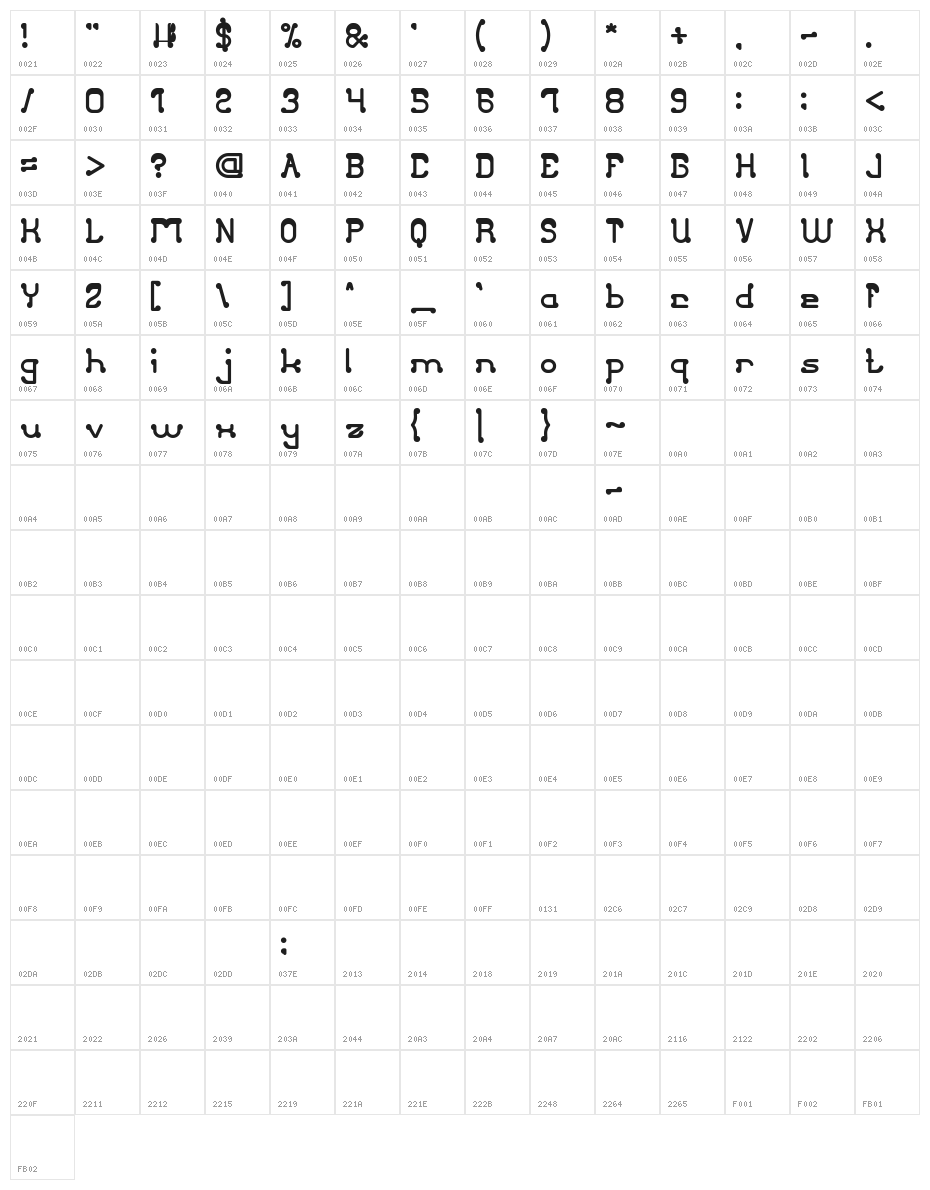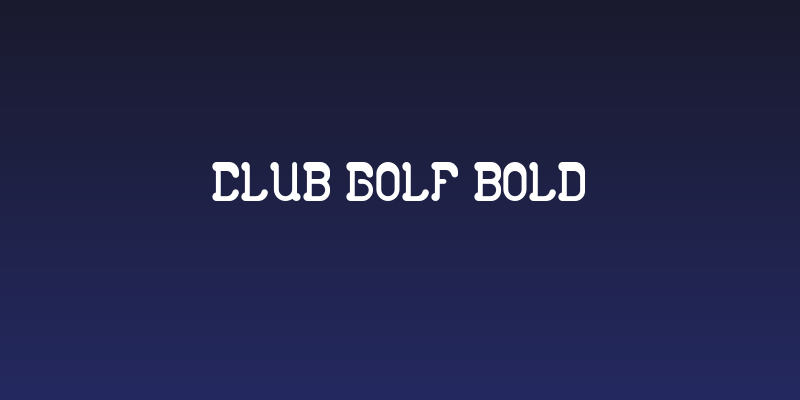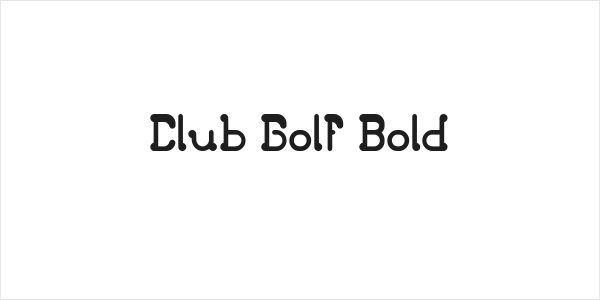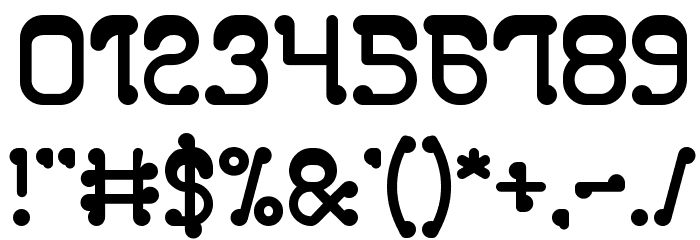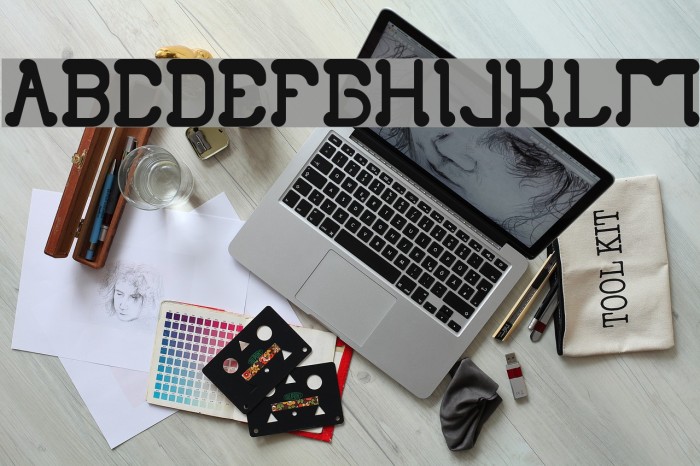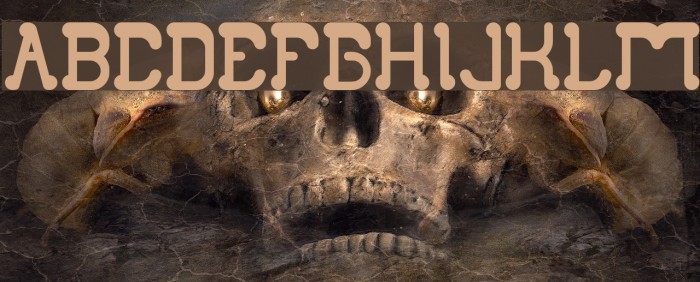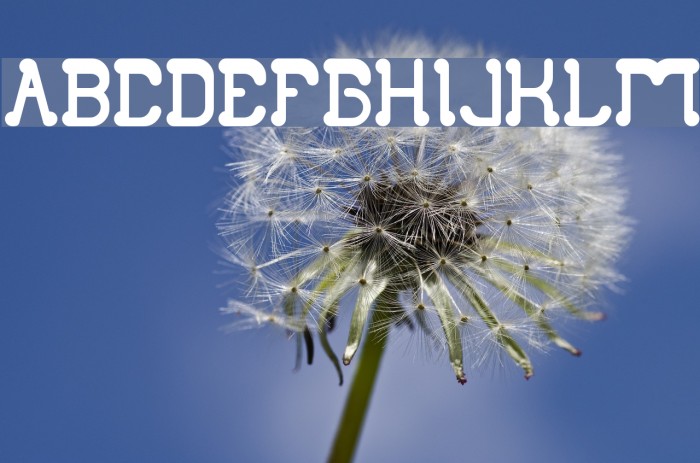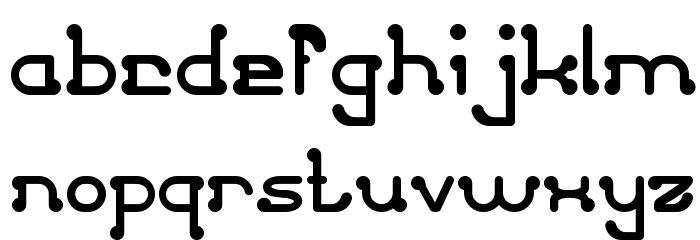
Club Golf Bold Font
Club Golf Bold Description
This font features a bold and playful design with rounded edges and a unique, sporty flair. The characters are constructed with thick strokes and have a consistent weight throughout, giving them a robust and sturdy appearance. The rounded terminals and slightly condensed letterforms add a friendly and approachable feel, making it suitable for casual and fun applications. The numerals and special characters maintain the same playful style, ensuring consistency across all text elements. The overall design is reminiscent of vintage sports branding, with a modern twist that makes it versatile for various design projects.
CLUB-GOLF-BOLD UPPERCASE
CLUB-GOLF-BOLD LOWERCASE
CLUB-GOLF-BOLD OTHER CHARS
| Overall Style | Vintage, Playful |
| Use Case | Logos, Posters, Headlines |
| Proposed Projects | Ideal for sports branding, playful logos, children's book covers, and casual event posters. |